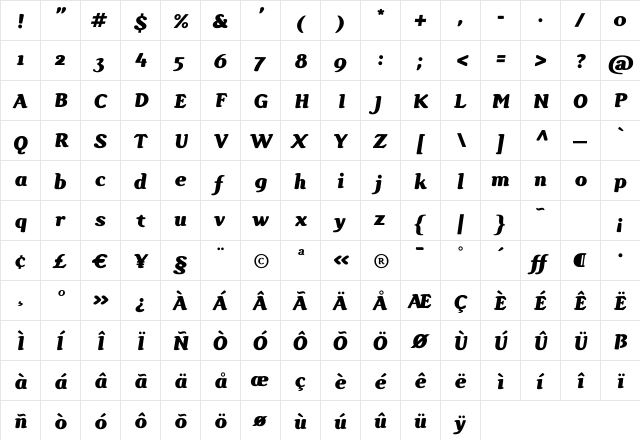
GopalHeavy Italic Regular
Design Context for GopalHeavy Italic Typeface
GopalHeavy Italic is a composed and adaptable typeface that performs quietly and consistently across a wide range of design contexts. Its italic angle brings a sense of urgency and motion to the letterforms.
Pro Tip: Use GopalHeavy Italic for emphasis, pull quotes, and subheadings where its slanted energy can add rhythm to the layout.